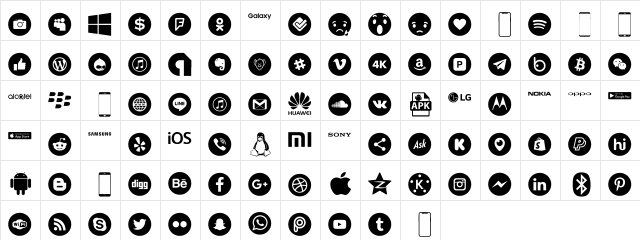
Smartphone Pro Regular
Design Context for Smartphone Pro Typeface
Smartphone Pro is a composed and adaptable typeface that performs quietly and consistently across a wide range of design contexts.
Pro Tip: Use Smartphone Pro in both headline and body roles to test its range before committing to a single application.